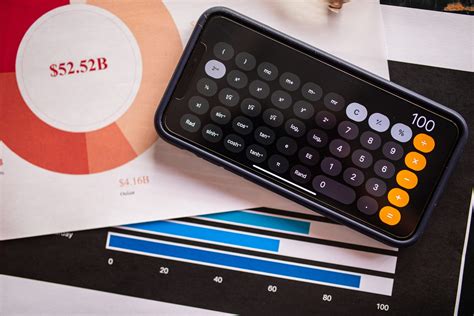
Mastering IOS Fonts: A Comprehensive Guide
Mastering iOS Fonts: A Comprehensive Guide
Hey everyone! Today, we’re diving deep into the awesome world of iOS fonts . If you’re a developer, designer, or just someone who loves making your iPhone or iPad look stunning , this guide is for you, guys! We’ll explore everything from the default system fonts to custom fonts and how you can use them to create incredible user experiences. Get ready to level up your app’s aesthetic game!
Understanding the Default iOS Fonts: San Francisco Powerhouse
When you first pick up an Apple device, the first thing you notice is how clean and readable everything looks. That’s no accident, folks! Apple has put a ton of effort into its default iOS fonts , and the star of the show is the San Francisco (SF) font family. It’s not just one font; it’s a whole ecosystem designed for optimal readability across all Apple platforms. The SF Pro, SF Pro Display, and SF Pro Text variants are meticulously crafted. SF Pro Display is optimized for larger text sizes, ensuring crispness and clarity when you’re reading headlines or prominent text. On the other hand, SF Pro Text is your go-to for smaller body text, where legibility is absolutely paramount. It subtly adjusts character spacing and proportions to prevent words from blurring together. What’s super cool about SF is its Dynamic Type support. This means the font automatically scales and adjusts its weight based on the user’s preferred text size in the device’s accessibility settings. This is a game-changer for inclusivity, making your app usable and beautiful for everyone, regardless of their vision needs. Seriously, mastering these system fonts is the first step to creating polished, professional-looking iOS apps. You don’t always need to go custom; leveraging the power of San Francisco can already elevate your design significantly. Think about how Apple itself uses SF – it’s everywhere, from the dock icons to the Settings app, and it just works . The consistency and familiarity it brings to the user experience are invaluable. So, before you even think about importing third-party fonts, make sure you’ve fully explored what SF has to offer. Its versatility, legibility, and built-in accessibility features make it the ultimate foundation for any iOS interface. It’s all about making the text as easy and pleasant to read as possible, and SF nails it. Its clean lines and balanced stroke widths ensure it performs brilliantly on high-resolution Retina displays, maintaining sharpness even at small sizes. The subtle differences between the Display and Text versions are key to its success; it’s a nuanced approach that prioritizes the reading experience. Plus, Apple’s commitment to maintaining and updating this font family means you’re always working with a cutting-edge, highly optimized typographic system. It’s truly a testament to Apple’s design philosophy: form and function working in perfect harmony.
Custom Fonts in iOS: Adding Personality and Brand Voice
While the San Francisco font family is fantastic, sometimes you need something more to make your app stand out or to perfectly capture your brand’s identity. That’s where custom fonts in iOS come into play! Using custom fonts allows you to inject personality, evoke specific emotions, and create a truly unique visual experience for your users. It’s like giving your app its own distinct voice. The process might seem a bit daunting at first, but guys, it’s totally manageable. First, you need to acquire your font files – usually in .ttf (TrueType Font) or .otf (OpenType Font) formats. Make sure you have the proper licensing to use these fonts in your application, as this is super important to avoid legal headaches. Once you have your font files, you’ll add them to your Xcode project. You do this by simply dragging and dropping the font files into your project navigator. Xcode will usually ask if you want to copy the items into the project – say yes! Then, you need to declare these fonts in your app’s Info.plist file. You create a new key called “Fonts provided by application” ( UIAppFonts ) and add each of your font files as a string item in the array. This tells iOS that these are custom fonts your app intends to use. After that, you can reference your custom fonts in your code using their PostScript names . Finding the PostScript name can sometimes be a little tricky, but you can usually find it in the font’s information or by using tools like Font Book on macOS. Once you have the correct name, you can use it with UIFont(name:size:) to apply it to your labels, buttons, and other text elements. For example, let customFont = UIFont(name: "YourCustomFont-Regular", size: 17) would be how you’d create an instance of your font. The impact of a well-chosen custom font cannot be overstated. It can make your app feel more playful, sophisticated, luxurious, or any other vibe you’re aiming for. Just remember to use them wisely! Overusing fancy fonts or choosing ones that are hard to read can actually detract from the user experience. Always prioritize legibility, especially for body text. Custom fonts are powerful tools for branding and personalization , but they should be implemented thoughtfully to enhance, not hinder, usability. Think about how Google uses its custom fonts across its products – it creates a cohesive and recognizable brand language. You can achieve a similar effect for your own app by carefully selecting and integrating fonts that align with your app’s purpose and target audience. It’s all about creating a harmonious blend of aesthetics and functionality, ensuring your app not only looks good but also feels intuitive and enjoyable to interact with. And hey, don’t forget to test your custom fonts on different devices and screen sizes to ensure they render correctly everywhere. Sometimes, fonts that look great on a simulator might have rendering issues on a physical device, so thorough testing is key to a flawless user experience. It’s a small detail, but using custom fonts correctly can make a huge difference in how users perceive your app’s quality and professionalism. So go ahead, experiment, and find that perfect font that speaks volumes about your app!
Best Practices for Using iOS Fonts: Readability is Key!
Alright folks, we’ve covered the what and the how of iOS fonts, but let’s talk about the why and the best practices . Using fonts isn’t just about making things look pretty; it’s about creating a seamless and enjoyable user experience. Readability is king when it comes to app design, and your font choices play a massive role in this. First off, always consider your target audience and the app’s purpose . A playful font might be perfect for a children’s game, but it would look utterly out of place in a professional finance app. Stick to system fonts like San Francisco whenever possible, especially for body text. They are optimized for legibility, scale beautifully with Dynamic Type, and offer a consistent user experience across the iOS ecosystem. If you do opt for custom fonts, choose them wisely . Avoid overly decorative or script fonts for anything other than occasional decorative elements. They can be a nightmare to read, especially at smaller sizes or for users with visual impairments. Prioritize legibility above all else. Test your chosen fonts rigorously. Use Apple’s Human Interface Guidelines (HIG) as a compass. They offer invaluable advice on typography, including recommended font weights and sizes for different UI elements. For instance, using bold for emphasis and regular for standard text is a good rule of thumb. Ensure your font choices support accessibility . This means respecting the user’s Dynamic Type settings. If a user has increased their text size, your app should adapt gracefully. Custom fonts can sometimes be tricky with Dynamic Type if not implemented correctly, so pay close attention to how they scale. Limit the number of font families you use within a single app. Typically, one or two font families are sufficient. Using too many can make your app look cluttered and unprofessional. Think about hierarchy – use different weights (like regular, medium, bold) and sizes to establish a clear visual structure for your content. Performance matters too! While less common with modern iOS devices, very complex or numerous custom fonts could potentially impact app launch times or memory usage. Keep font files reasonably sized if possible. Consistency is crucial. Use your chosen fonts consistently throughout the app. If a button uses a certain font and weight, other similar buttons should use the same. This predictability helps users navigate your app more intuitively. Avoid all-caps for lengthy text. While sometimes used for headings, long passages in all caps can be harder to read and feel like shouting. Finally, get feedback! Ask beta testers or colleagues to review your app’s typography. Fresh eyes can often spot readability issues you might have missed. By following these best practices, you’ll ensure your iOS app not only looks good but also provides an exceptional, accessible, and user-friendly experience for everyone. It’s all about that thoughtful, user-centered design, guys. Making text easy and pleasant to read is a fundamental part of creating a great app, and smart font usage is the key to unlocking that.
Conclusion: Typography Elevates Your iOS App Experience
So there you have it, guys! We’ve journeyed through the essentials of iOS fonts , from the impeccable San Francisco family to the creative possibilities of custom fonts. Remember, typography is more than just text; it’s a crucial element of user experience design . Whether you’re sticking with the robust system fonts or carefully integrating custom ones, the goal is always the same: clarity, readability, and aesthetic appeal . Apple’s San Francisco font family provides a fantastic, accessible foundation that works beautifully across all devices. For those moments when you need a unique brand voice or a distinct visual flair, custom fonts offer a powerful avenue, provided they are implemented thoughtfully and with a keen eye on legibility. We walked through the practical steps of adding and using custom fonts, emphasizing the importance of declaring them correctly in Info.plist and using their PostScript names. Most importantly, we stressed the best practices: prioritize readability, support accessibility through Dynamic Type, maintain consistency, and test thoroughly . By mastering these aspects of iOS typography, you’re not just designing screens; you’re crafting experiences. You’re making your app more engaging, more professional, and more user-friendly. So go forth, experiment, and let the power of great typography elevate your next iOS app! Happy designing!